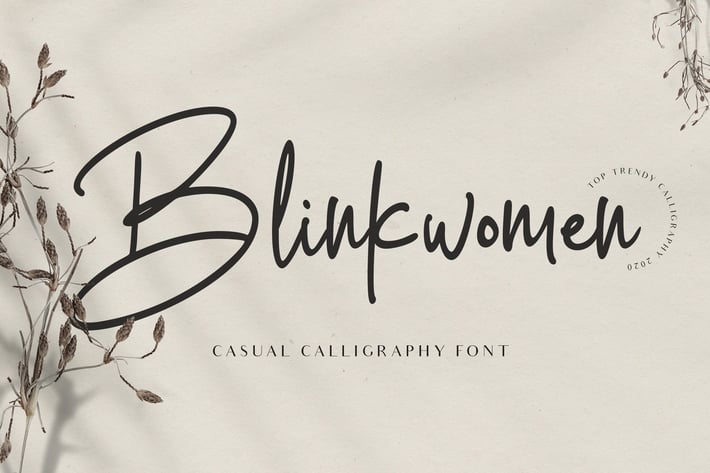
Blinkwomen Modern Signature Font
Blinkwomen is an organic handwritten font that is suitable for branding, signature, wedding invitation, promotion, product packaging, and other needs. This font is modern, simple, but still authentic.